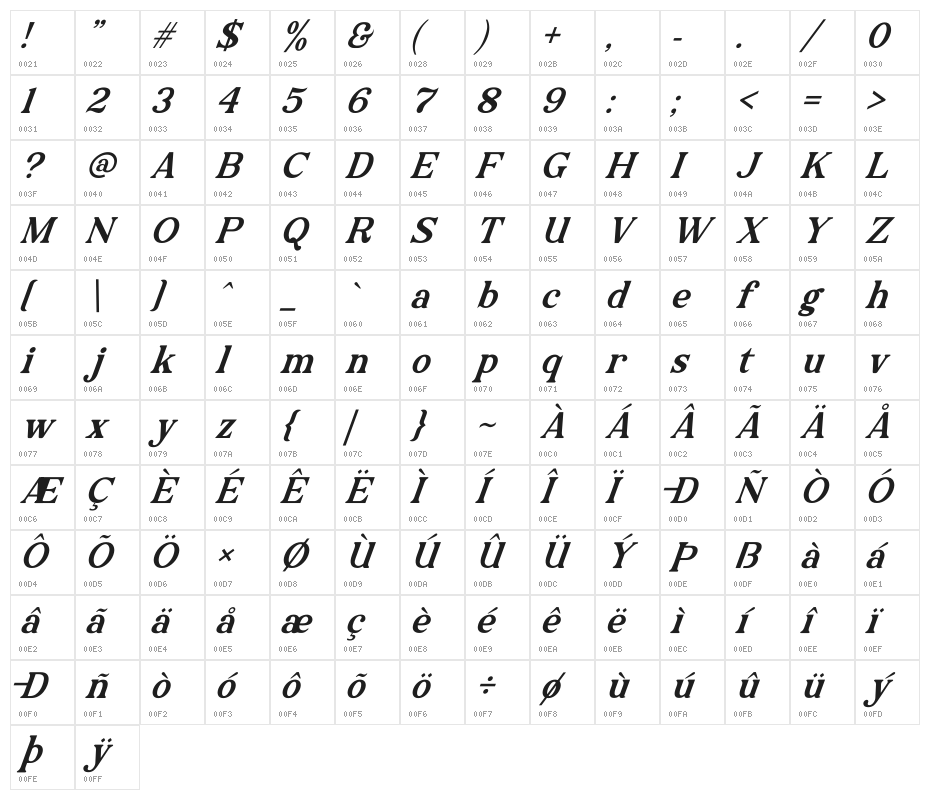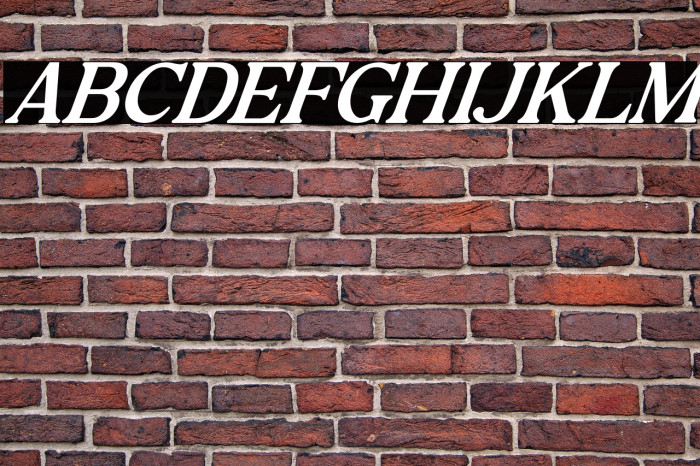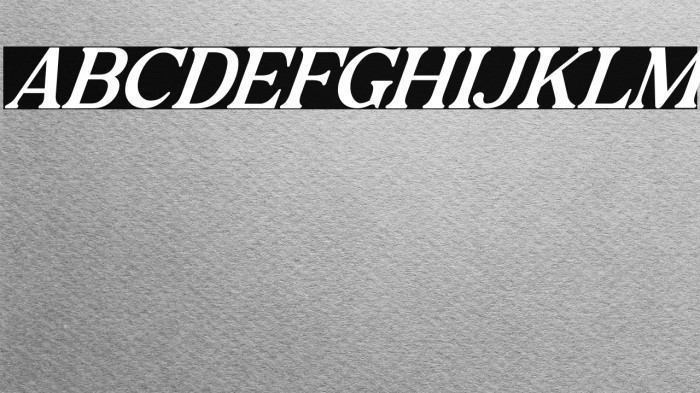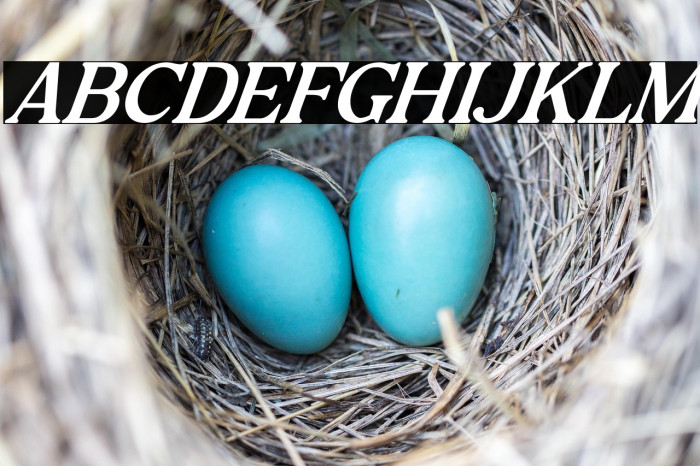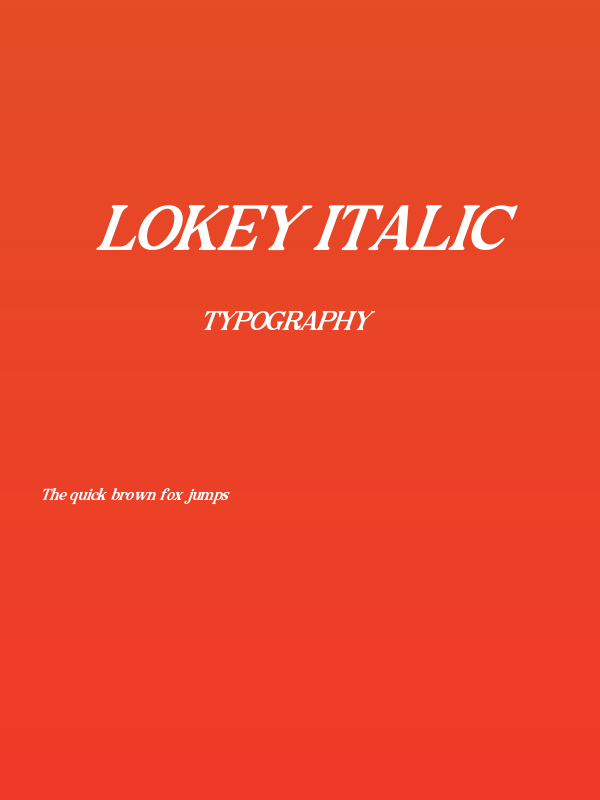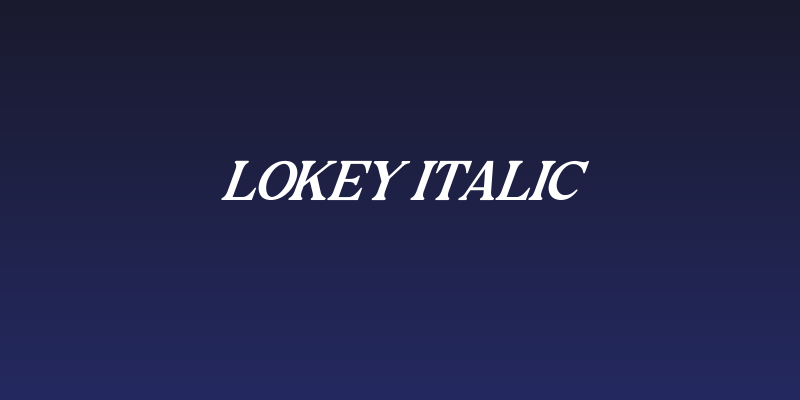
Lokey Italic Font
Lokey Italic Description
This font exhibits a classic italic style with a strong emphasis on elegance and fluidity. The characters are slanted, giving a sense of motion and sophistication. The strokes are smooth and well-defined, with a moderate contrast between thick and thin lines. The uppercase letters are bold and commanding, while the lowercase letters maintain a graceful flow. Numbers and special characters are designed to complement the overall aesthetic, ensuring consistency across all elements. This font is ideal for projects that require a touch of class and refinement.
Overall StyleClassic
Use CaseHeadlines, Logos, Invitations
Proposed ProjectsIdeal for luxury branding, editorial design, invitations, and elegant packaging.